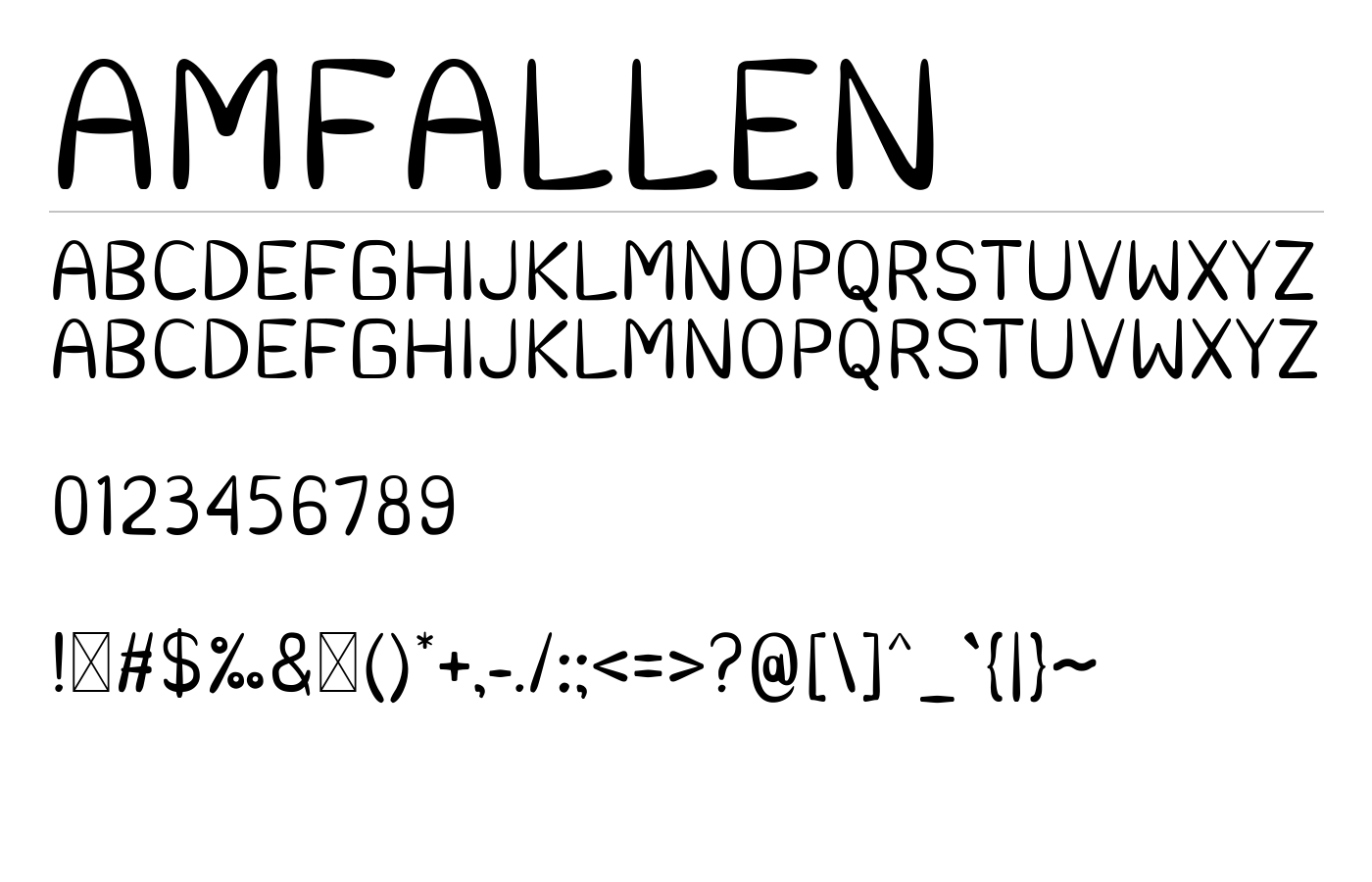
Amfallen is a playful, casual sans serif font with a hand-drawn feel, featuring rounded, slightly irregular letterforms that add warmth and personality. Its light weight and open spacing make it easy to read, ideal for creative designs that seek a friendly and approachable tone. This font works great for children's books, informal branding, posters, and digital content where a relaxed and inviting style is desired.